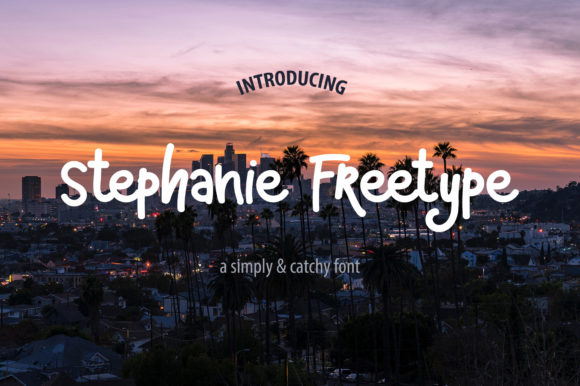
Unleash the allure of Stephanie Freetype, a script font born from the desire to captivate and enchant. Immerse yourself in its graceful curves and elegant strokes, each meticulously crafted to evoke a sense of warmth and charm. With its timeless appeal, Stephanie Freetype effortlessly adds a touch of sophistication to any creative endeavor.
Enter a world where letters dance with effortless beauty, where words come alive with captivating charm. Stephanie Freetype's regular handwritten style is a masterpiece of simplicity, yet its impact is profound. Experience the joy of creating designs that exude friendliness and warmth, designs that embrace the beauty of human connection.
With Stephanie Freetype, your branding endeavors transcend the ordinary, taking on a life of their own. Its versatility knows no bounds, lending itself seamlessly to logos, posters, social media graphics, and countless other digital creations. Allow your imagination to soar as you witness the transformation of words into works of art, captivating your audience with every stroke.
As a creation of Imoodev, Stephanie Freetype embodies the essence of excellence. Its meticulously crafted characters embody the perfect harmony of form and function, ensuring flawless performance across a wide range of applications. Let Stephanie Freetype be your muse, inspiring you to create designs that resonate with your audience, leaving an indelible mark on their hearts and minds.